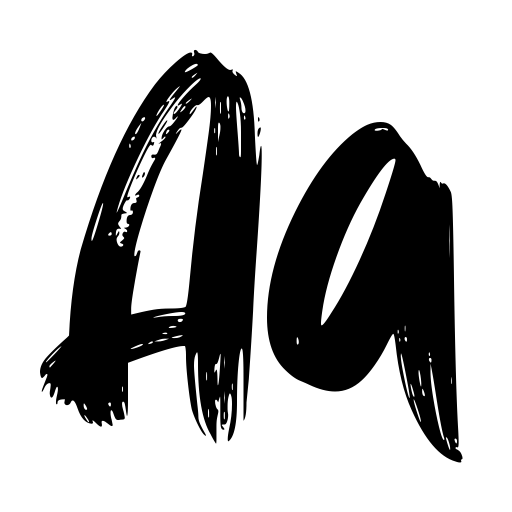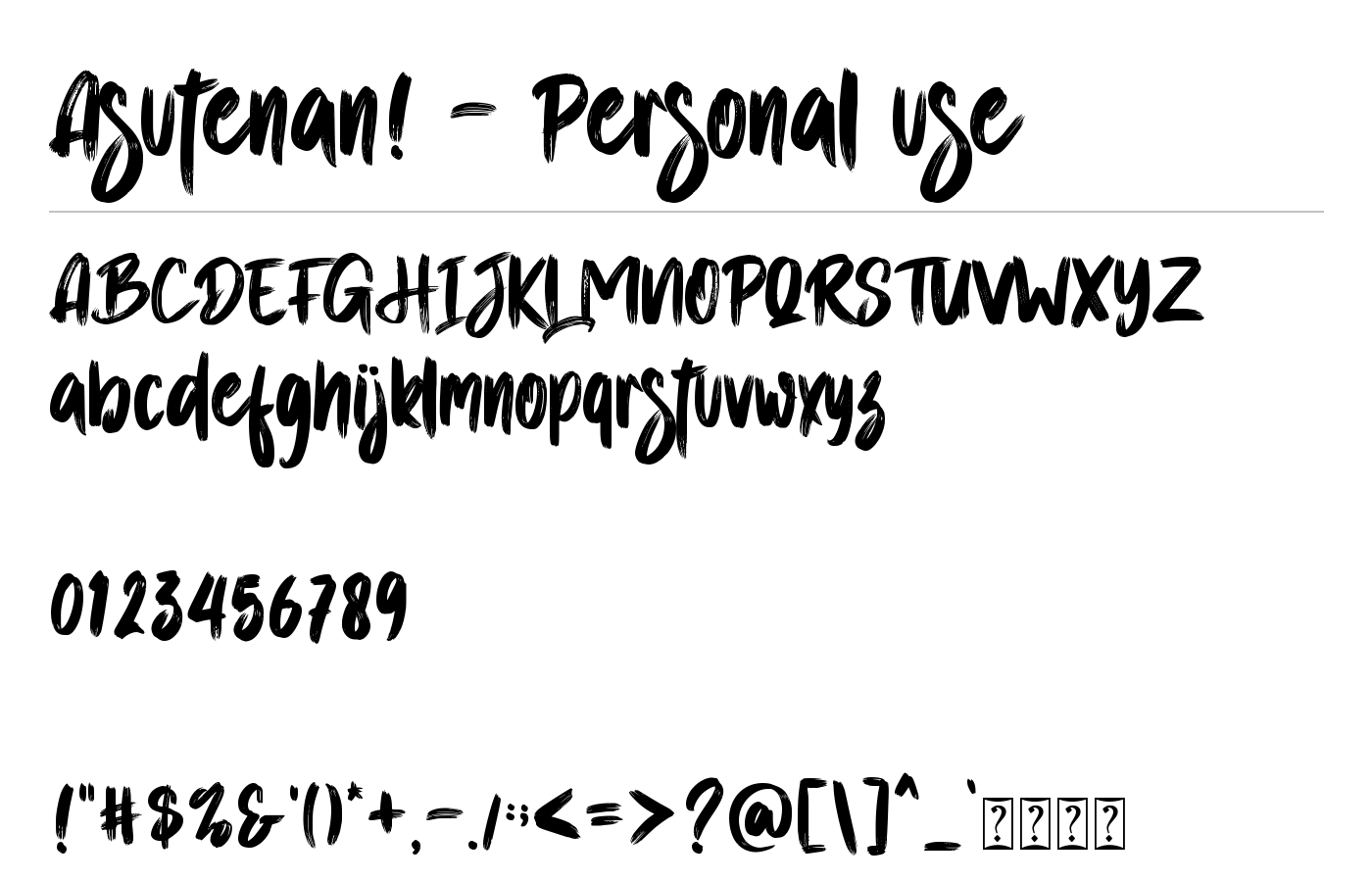
Asutenan! is a bold, brush-script style font with a lively and textured appearance, featuring tall, narrow letterforms with organic, hand-painted strokes. Its dynamic, expressive style makes it ideal for creative and casual designs such as branding, posters, and social media graphics where a personal, artistic touch is desired. This font works best in headline or display use, adding energy and personality to any design.